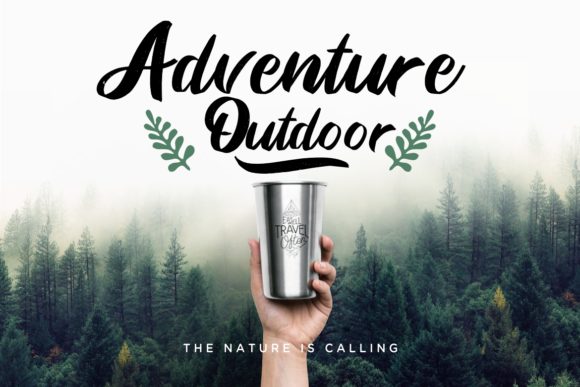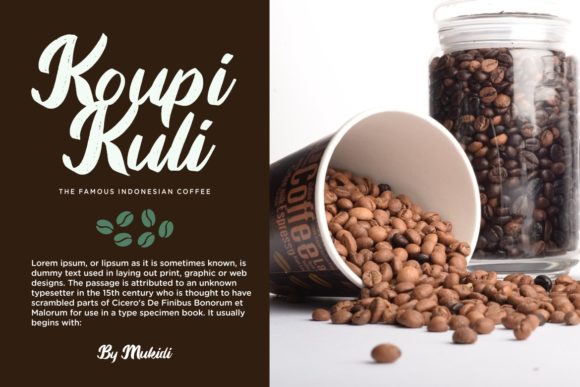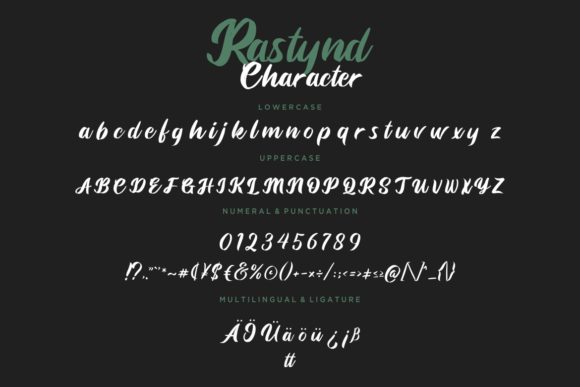
Introduction to Rastynd Font Font
Fonts play a crucial role in design, and the Rastynd Font font is a typeface that brings both character and versatility to any project. Whether you’re working on a branding project, a website, or a print design, the Rastynd Font font offers a unique style that can elevate your work.
Rastynd is a bold and modern script font with an adventurous feel.
Itβs perfect for any outdoorsy deisgn project .
Key Features of Rastynd Font Font
Why Choose Rastynd Font Font?
The Rastynd Font font is more than just a typeface β it’s a design tool that helps you communicate your message with style and clarity. Its unique character set and versatile design make it suitable for a wide range of applications, from elegant invitations to bold headlines.
With its carefully crafted letterforms and balanced proportions, the Rastynd Font font ensures readability and visual appeal across all mediums.
What makes Rastynd Font font special?
The Rastynd Font font stands out with its unique design, exceptional readability, and versatility across various design applications.